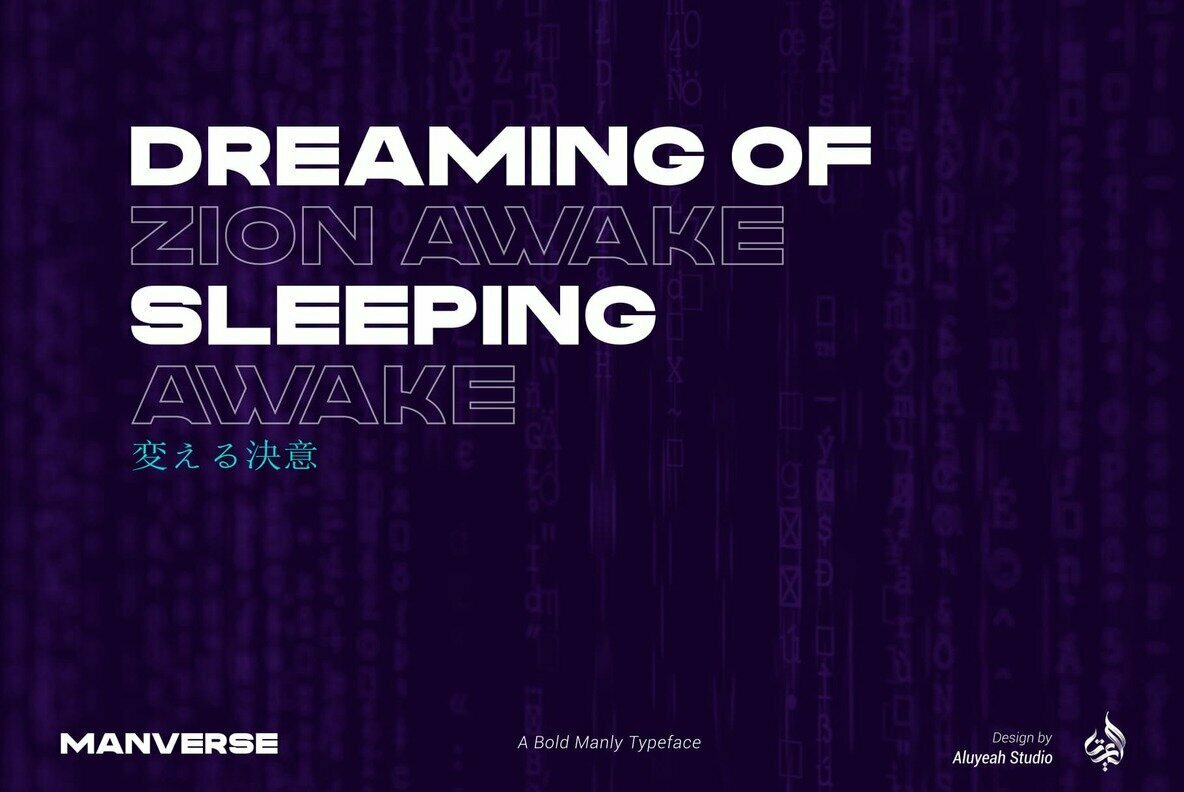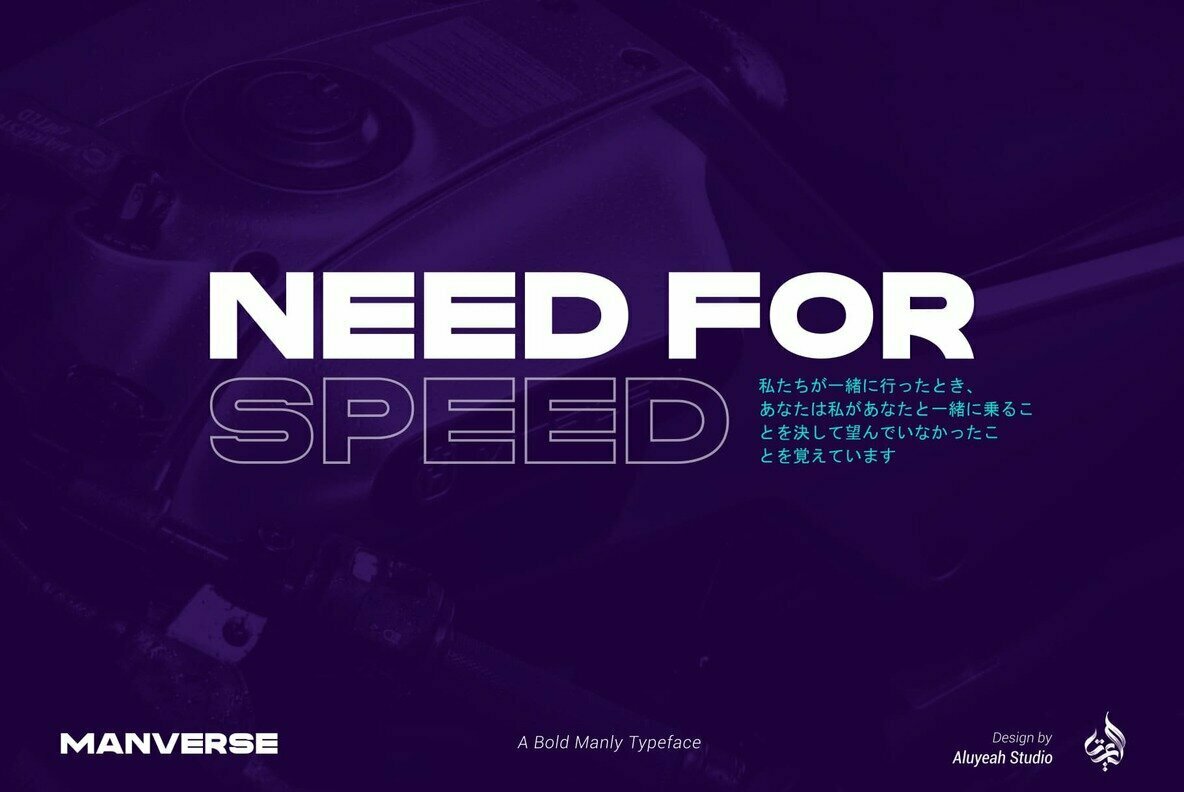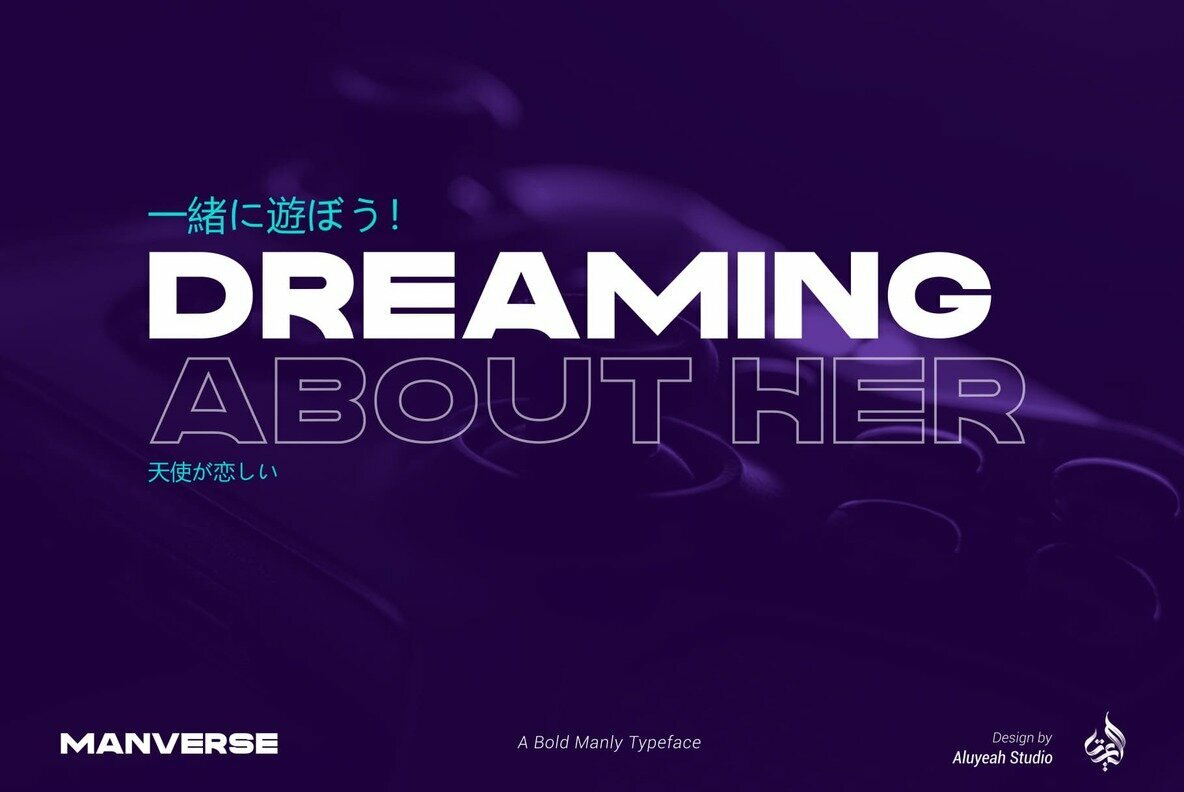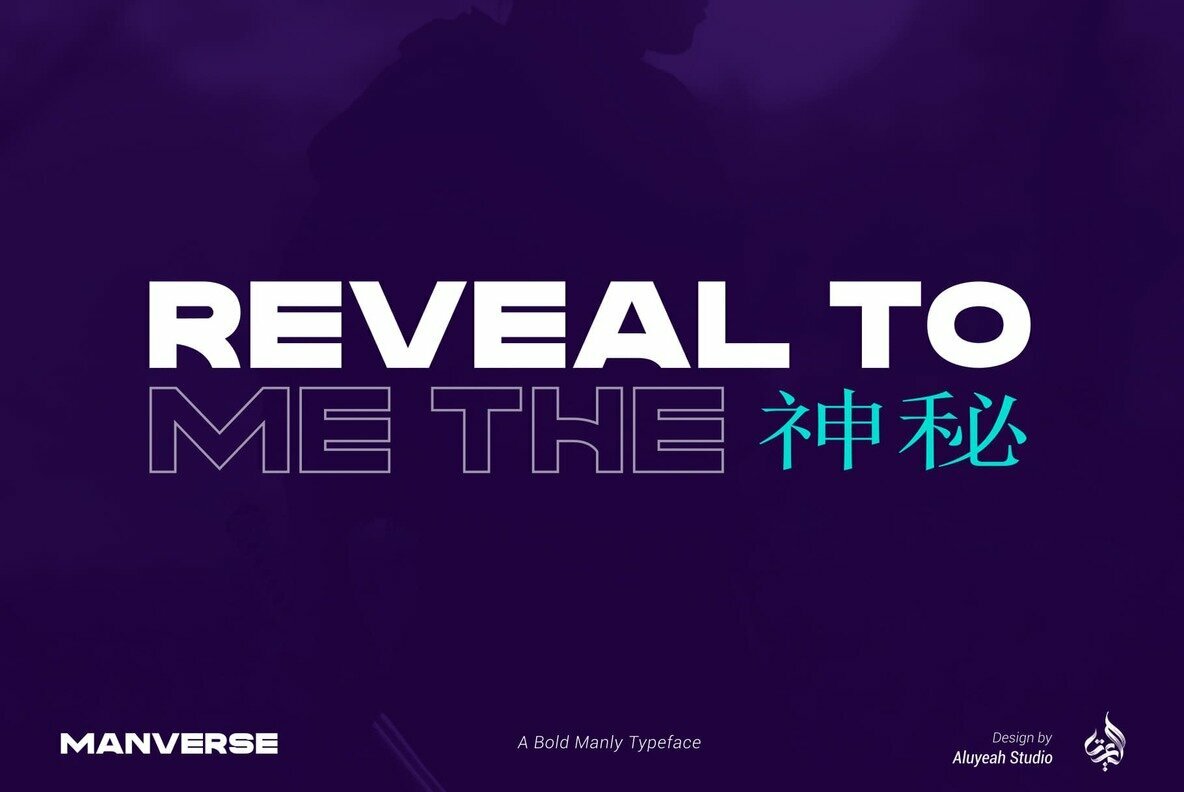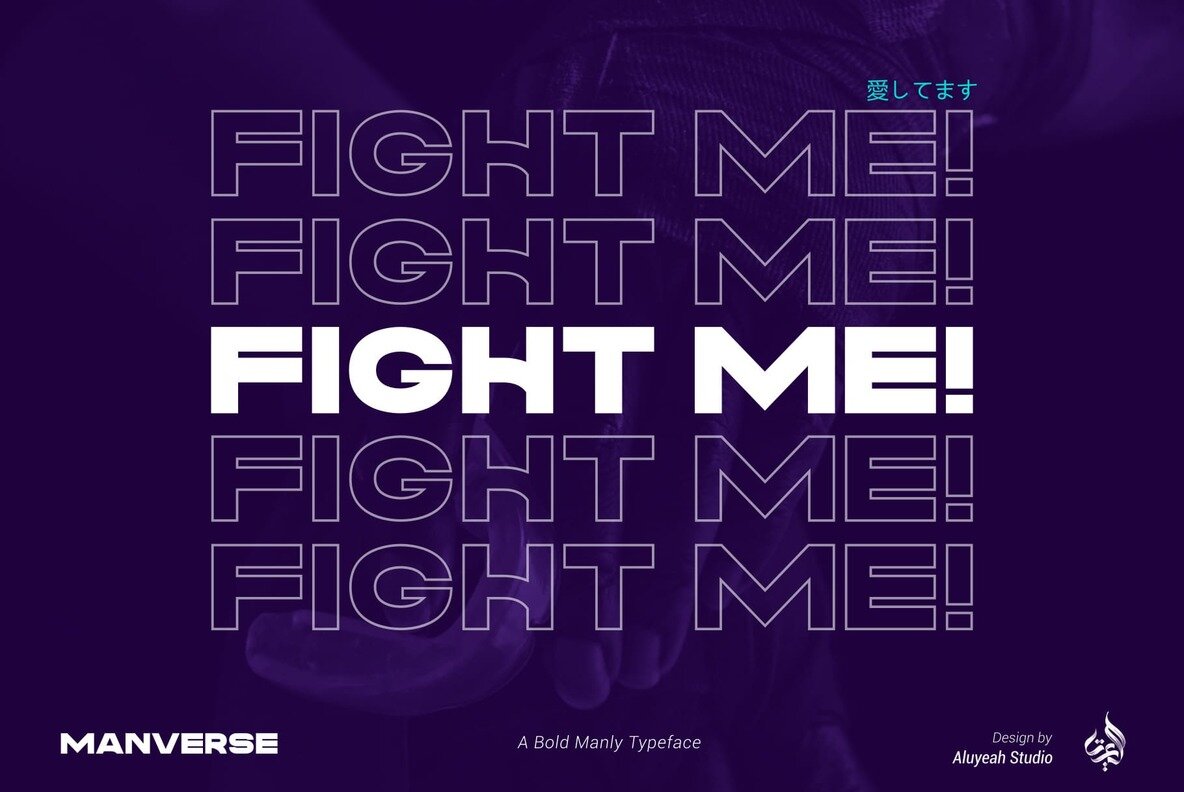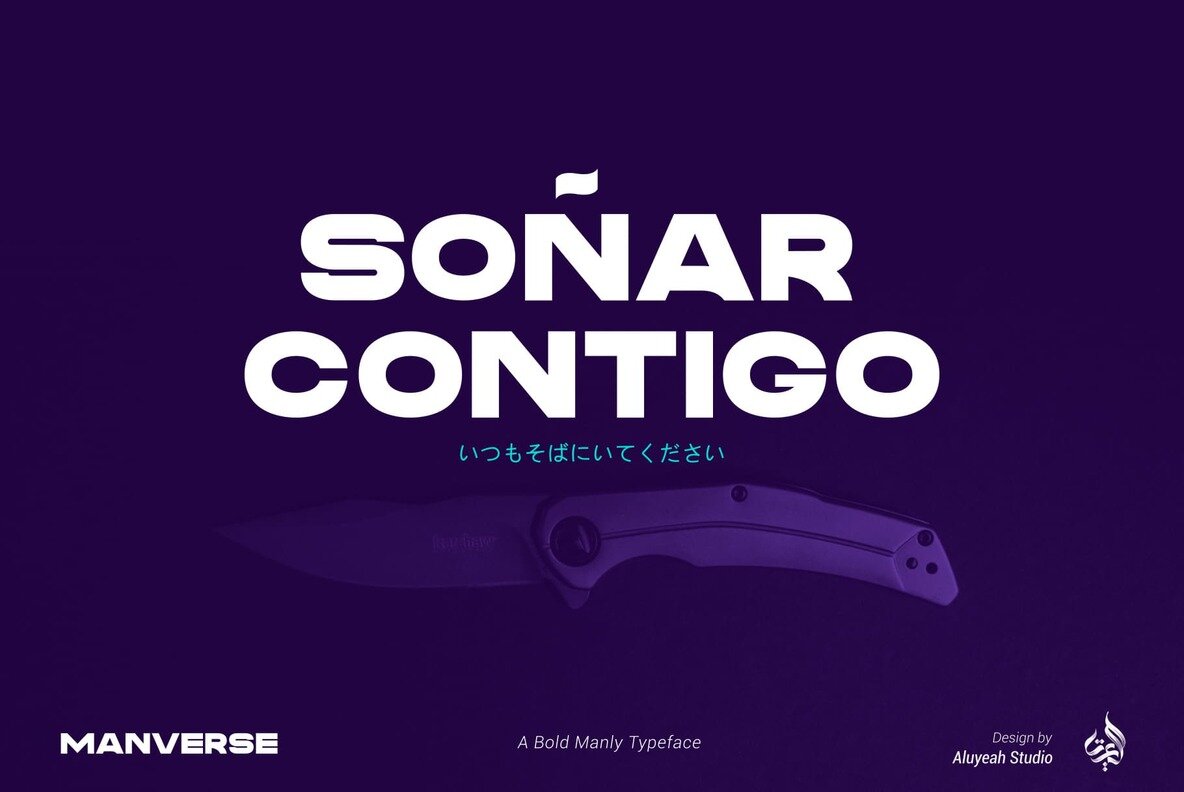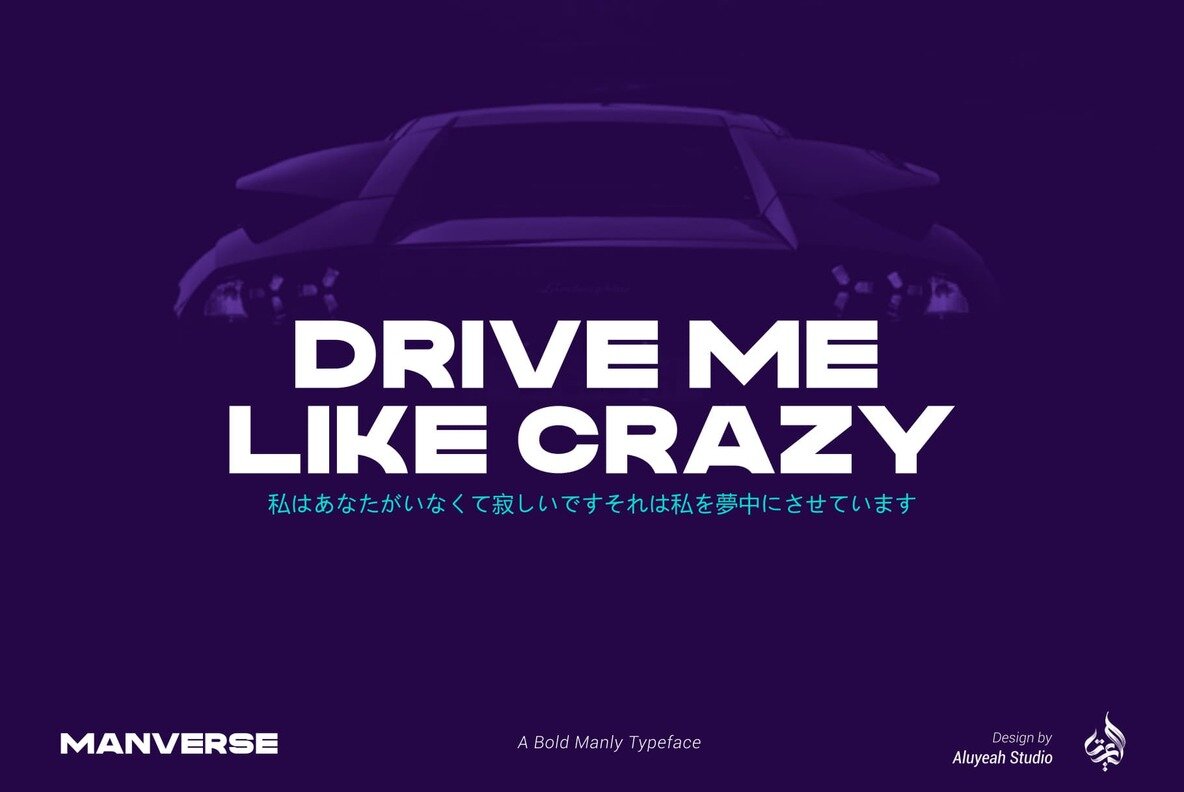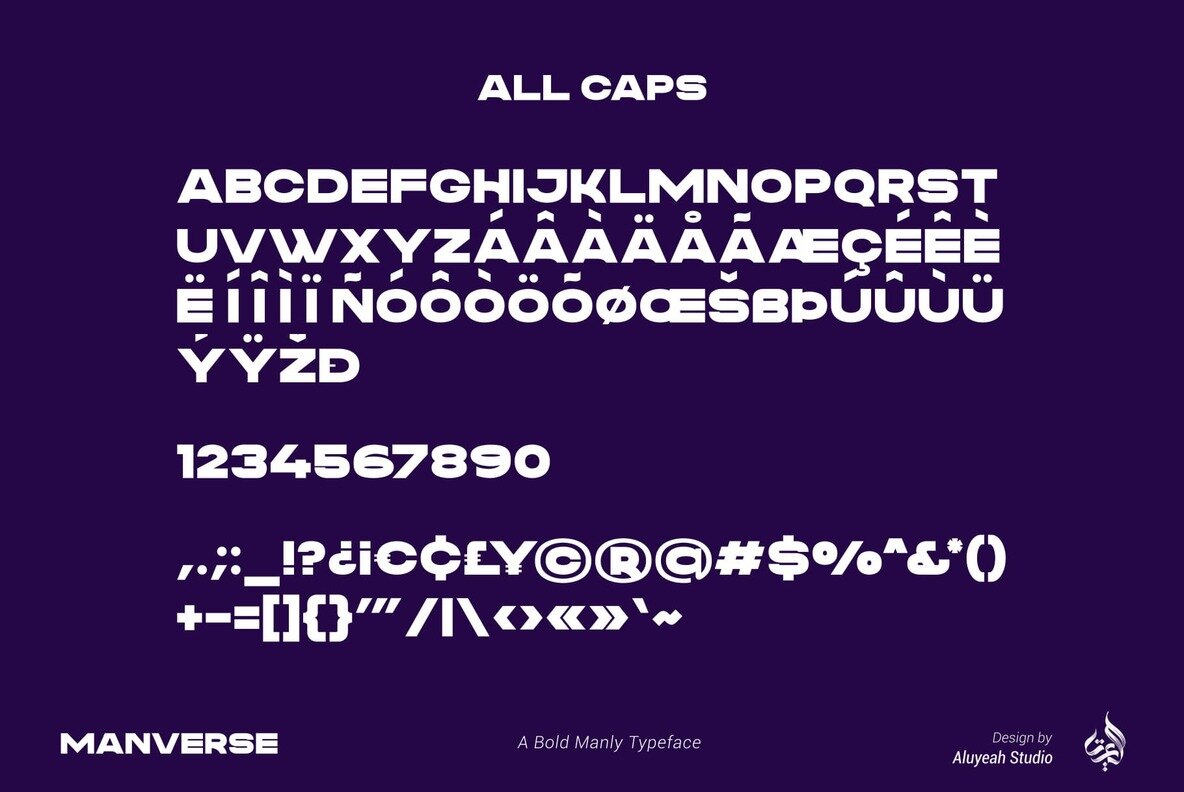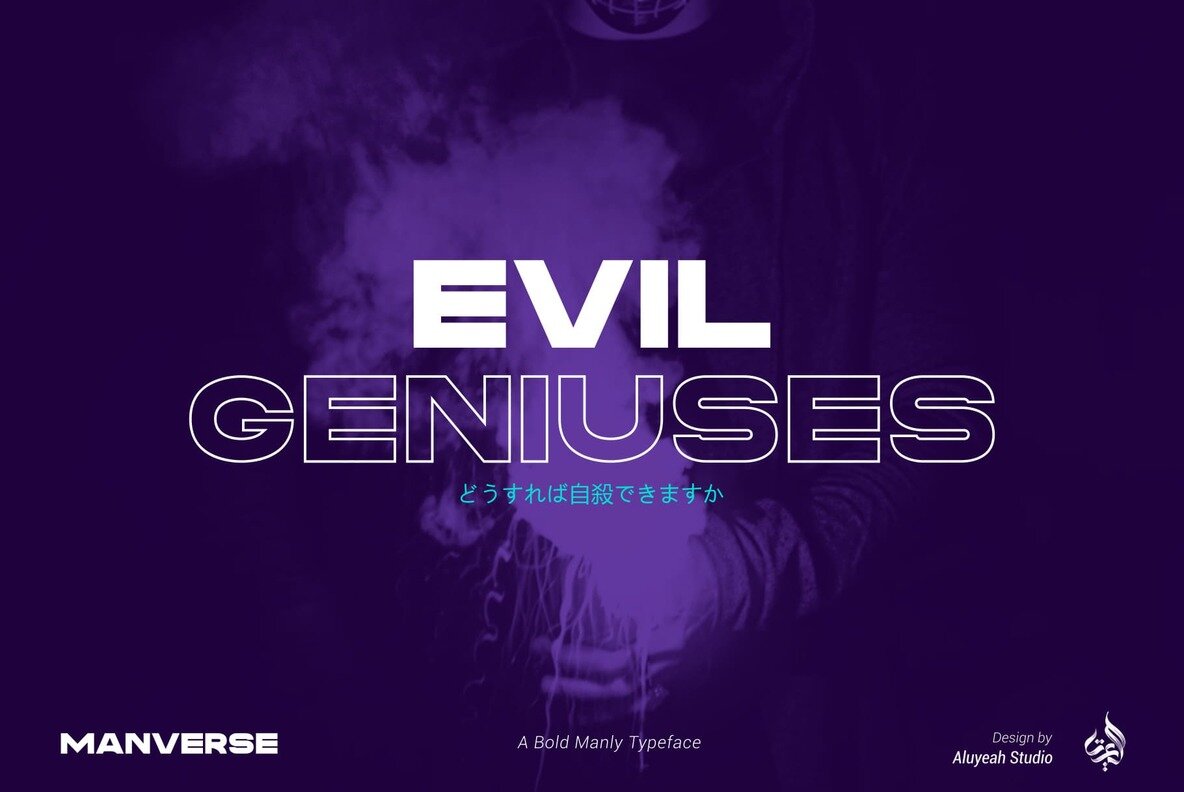
Manverse Font
Manverse, a robust typeface from Aluyeah Studio, captures the essence of masculinity with its bold and confident demeanor. Its design embodies elements often associated with the world of men, making it an ideal choice for impactful projects where strength and presence are key themes. Whether you're designing for magazines, crafting a compelling headline, enhancing website aesthetics, or creating eye-catching advertisements, Manverse offers the versatility needed. Its two distinct styles, coupled with multilingual support, ensure it adapts seamlessly to diverse applications.Manverse: The Bold Typeface for Masculine Design